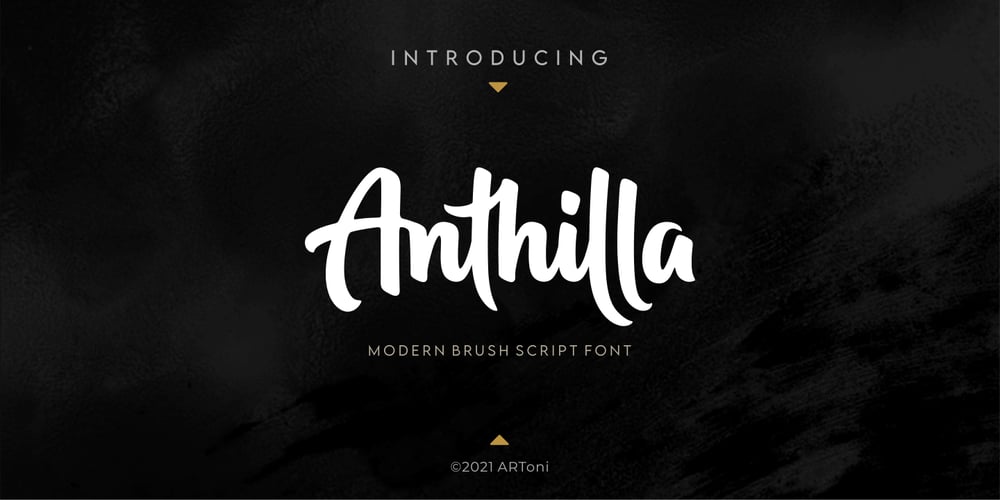
Anthilla Font Family was designed by Anthonie Van Hayu and published by ARToni. Anthilla contains 1 styles and family package options. Anthilla is a modern and bold paint brushed script font, featuring a smooth and dynamic feel.